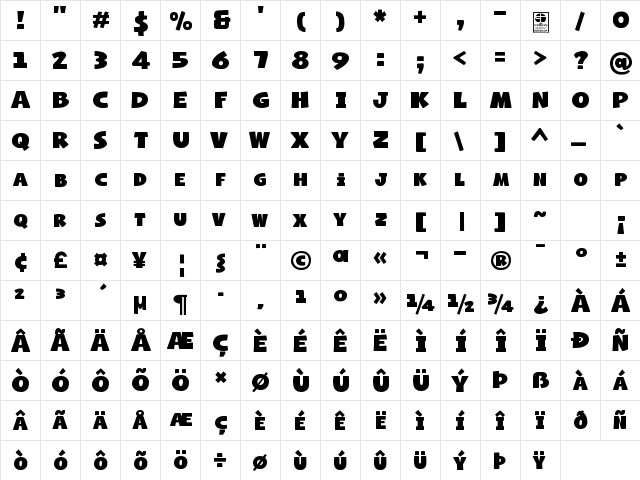
Naughty Squirrel Demo Regular
Design Context for Naughty Squirrel Demo Typeface
Naughty Squirrel Demo is a composed and adaptable typeface that performs quietly and consistently across a wide range of design contexts.
Pro Tip: Pair Naughty Squirrel Demo with a font of contrasting weight or personality to build a more expressive typographic hierarchy.